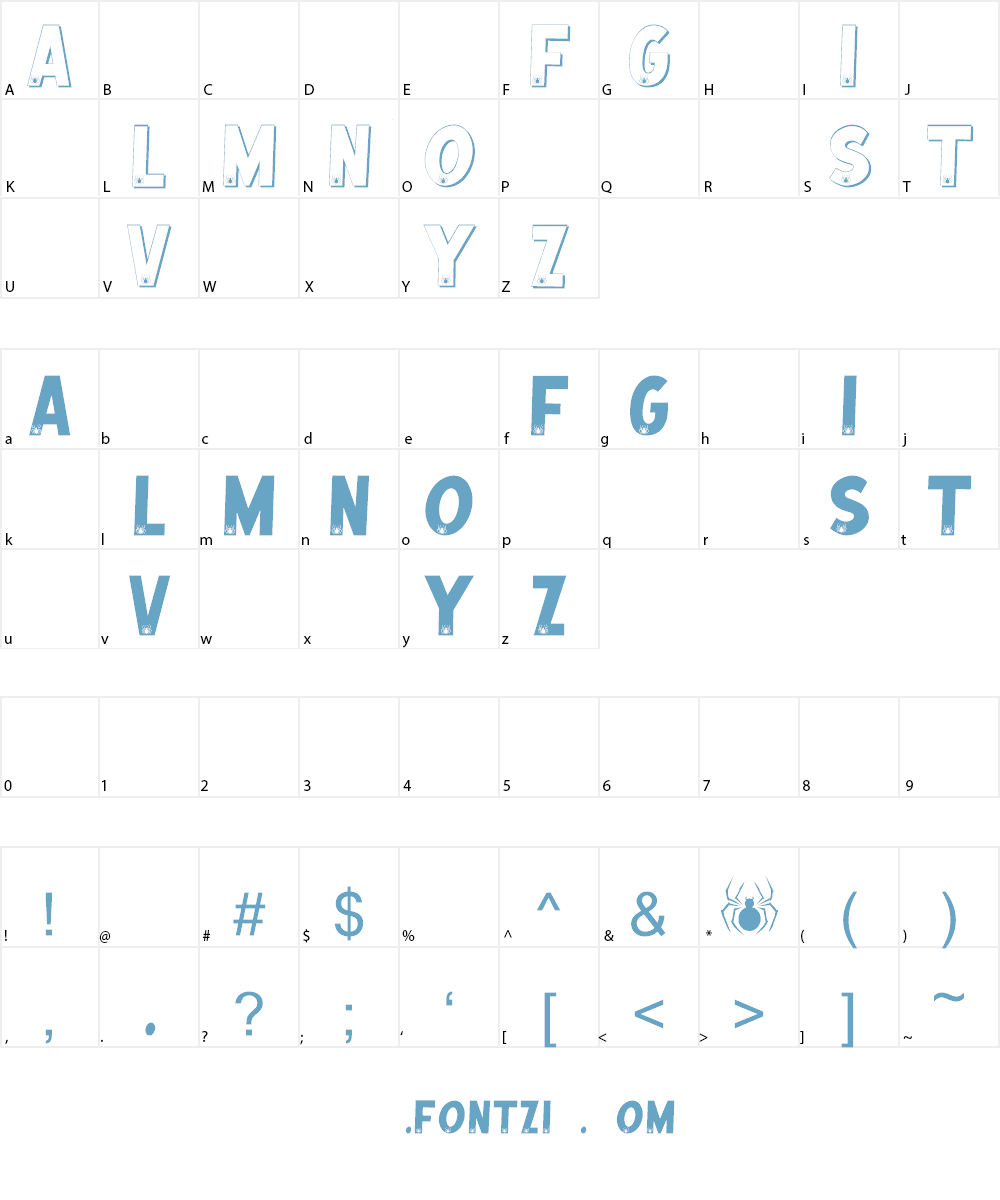
I have been wanting to create a fan-font based on the iconic first comic that Spider-Man appeared in way back in Amazing Adult Fantasy #15 but simply never got around to it until 2018. Also be sure to check out my Amazing Spider-Man typeface on fontspace created for all you devoted Webslingers out there !!!
This is a sample of 13 lowercase and capitals if you want the fully kerned OTF embeddable commercial version with numbers and accented glyph's please visit my Etsy Store